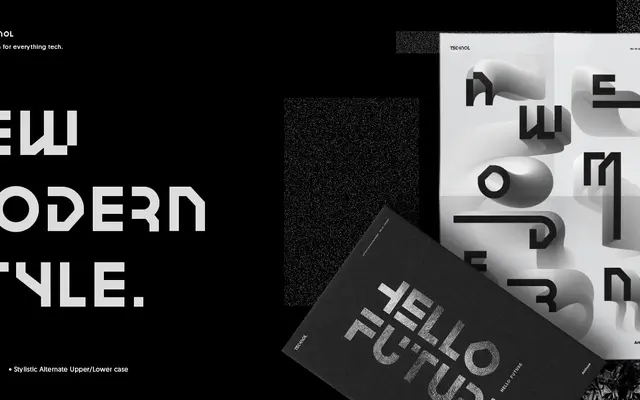
Technol
A single-weight grotesque from Arkitype with a clean Latin glyph set and no stylistic variants.
Technol is a Regular-only grotesque offering basic Latin coverage alongside standard punctuation, mathematical operators and geometric shapes. With no italic, condensed or additional weight options visible, it sits as a stripped-back display or text companion for projects that need a dependable, unfussy sans. The limited variant count keeps it niche, best suited to contexts where one weight is enough.
The page content and glyph set suggest a straightforward Latin grotesque with a single Regular weight; no italic or condensed variants are indicated.